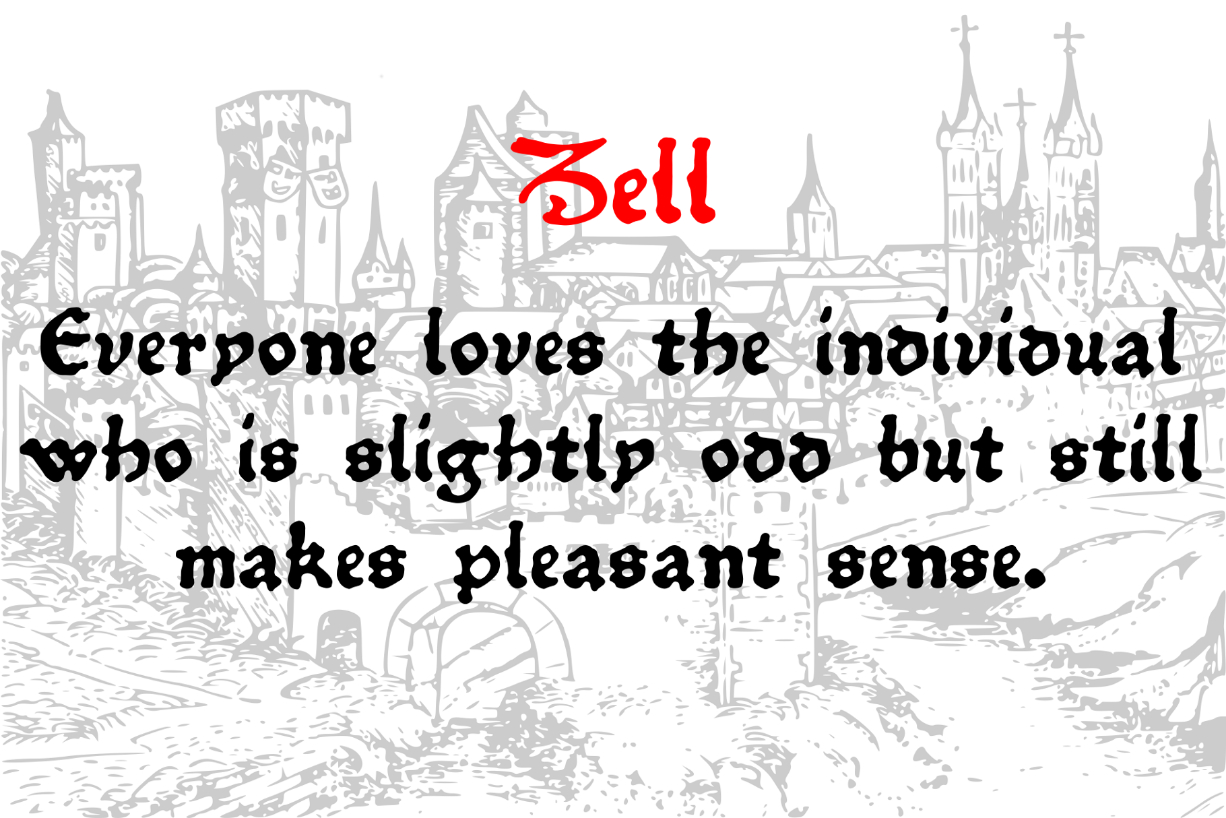
Zell Font
About Zell Font
Ulrich Zell, a student of Johann Fust and Peter Schoeffer learned his craft prior to 1462. Zell established a firm at Cologne between 1463 and 1466. He worked up to the year 1502 producing over 120 publications.